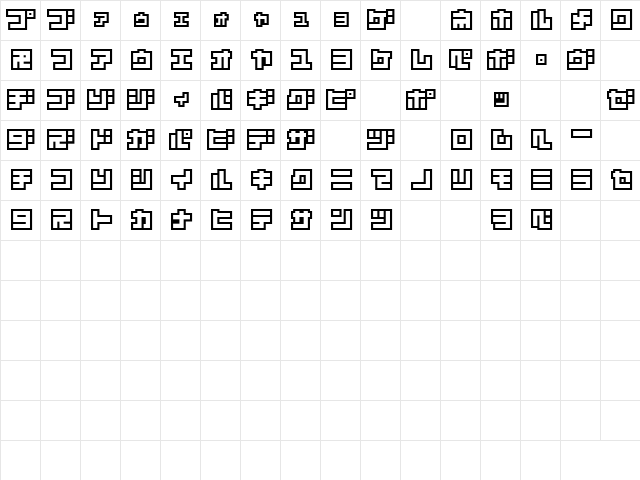
Complete D3 Superstructurism Kat_Out Regular glyph index. Displaying only characters natively supported by D3 Superstructurism Kat_Out Regular font.
D3 Superstructurism Kat_Out is a composed and adaptable typeface that performs quietly and consistently across a wide range of design contexts.